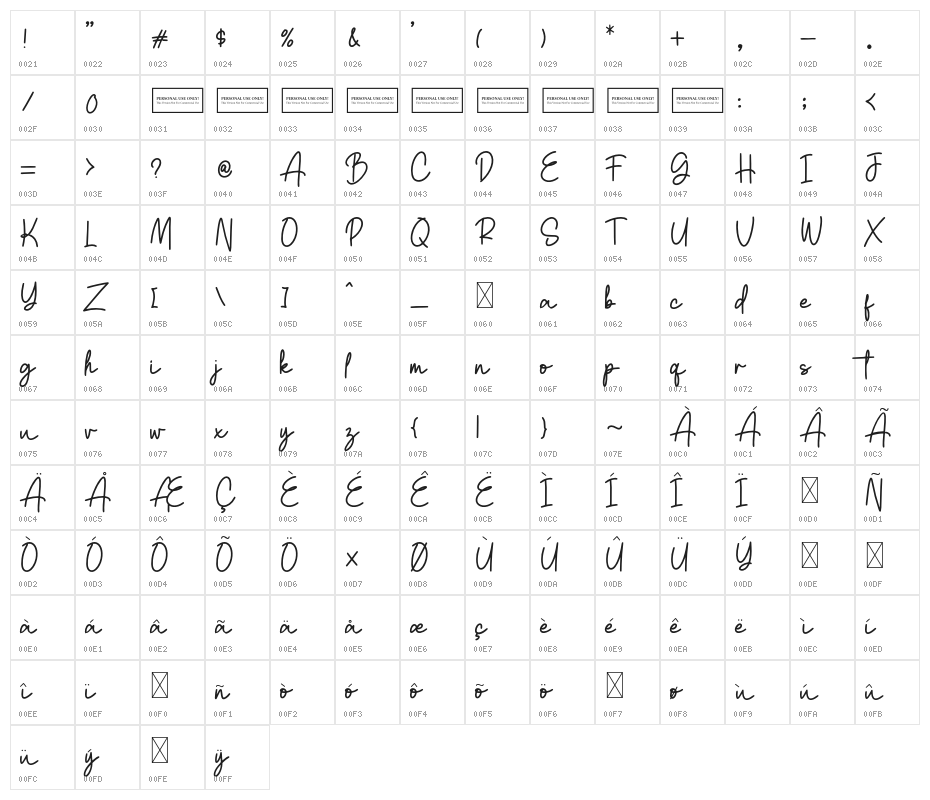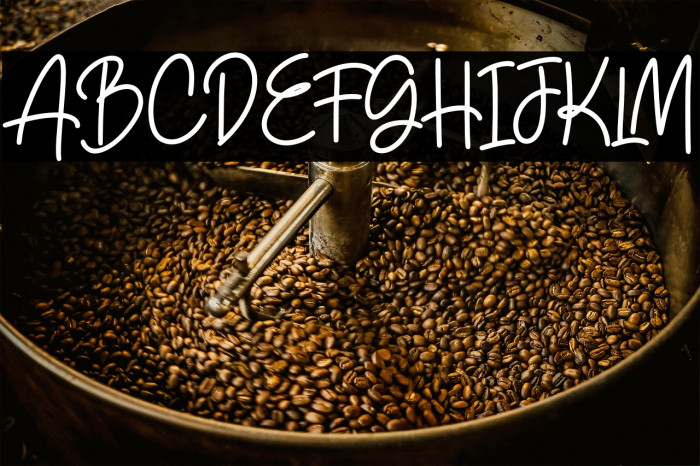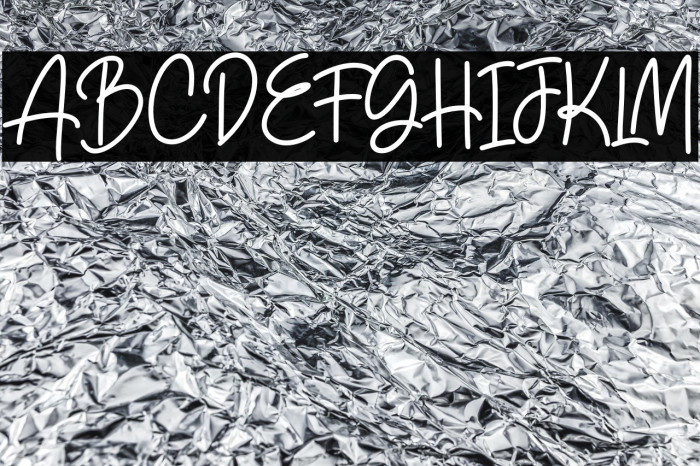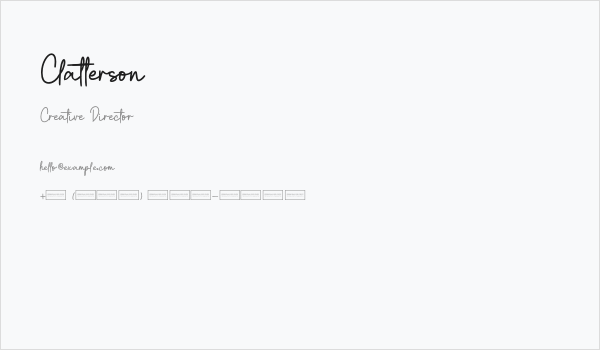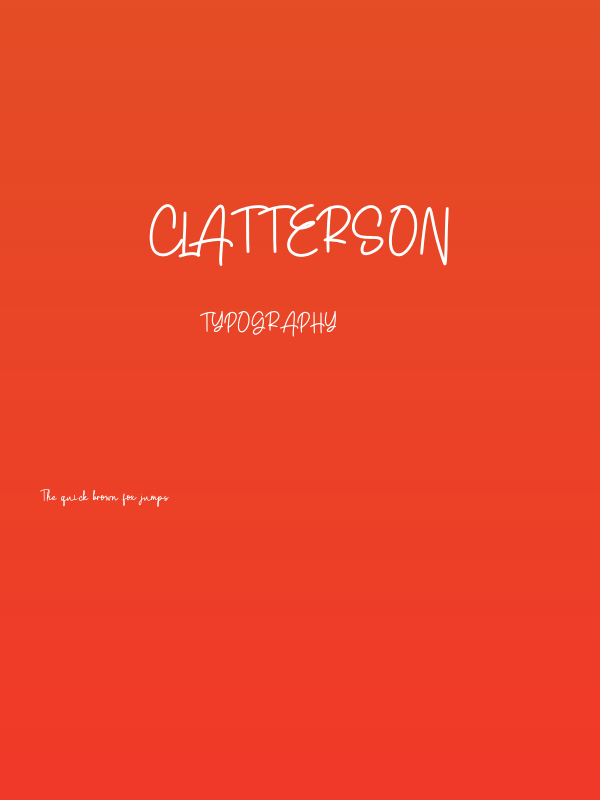
Clatterson Font
Clatterson Description
This font features a handwritten style with a casual and flowing appearance. The uppercase letters are tall and slightly narrow, with a playful yet elegant touch. The lowercase letters maintain a consistent flow, enhancing readability while preserving the handwritten aesthetic. The numbers and special characters are designed to match the overall style, providing a cohesive look across all elements. The strokes are smooth and slightly varied in thickness, adding a dynamic feel to the text. This font is ideal for projects that require a personal and approachable tone.
| Overall Style | Casual, Handwritten |
| Use Case | Logos, Headlines, Informal Text |
| Proposed Projects | Ideal for greeting cards, personal branding, social media graphics, and informal invitations. |